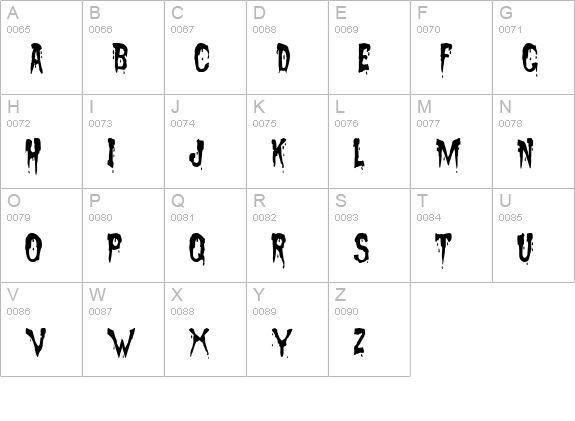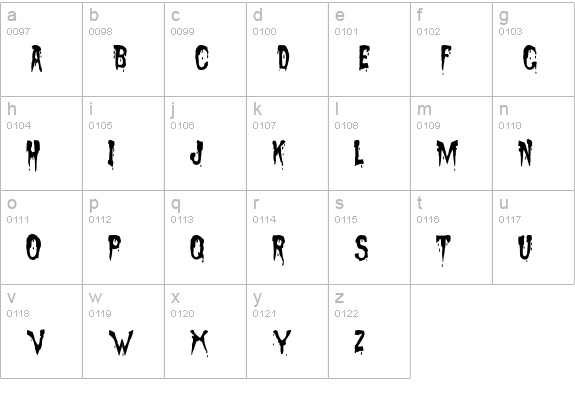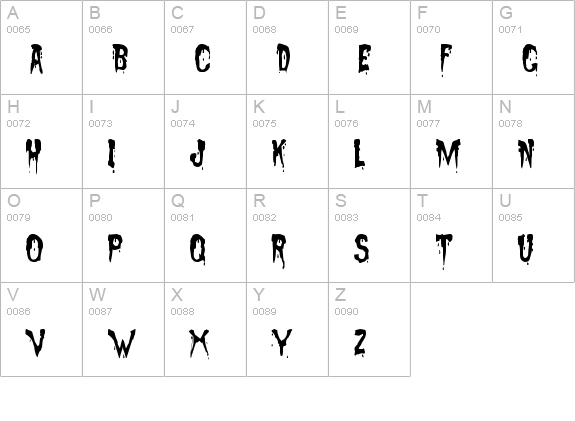
Sanguinary Font Details
Sanguinary font is a bold and captivating typeface that will leave a lasting impression on any design project. Its edgy and sinister style is perfect for creating impactful headlines, logos, posters, and more. With its sharp and dripping letterforms, Sanguinary font exudes a sense of danger and intrigue, making it ideal for horror, thriller, or mystery-themed designs. But what sets Sanguinary font apart from the rest is the fact that it is free. That's right, this striking font can be downloaded and used without any cost. Whether you are a professional designer or a hobbyist, Sanguinary font offers you the opportunity to enhance your creations with its unique and chilling aesthetic. To get your hands on Sanguinary font, simply visit FontsMarket.com, the leading platform for premium and free fonts. There, you will find a wide range of fonts to suit your design needs, and Sanguinary font is just one of the many gems waiting to be discovered. So don't miss out on the chance to add this captivating typeface to your font collection. Download Sanguinary font today and let its blood-red characters bring your designs to life. With its free availability and haunting allure, Sanguinary font is the perfect choice for those looking to make a bold statement and leave a lasting impression.